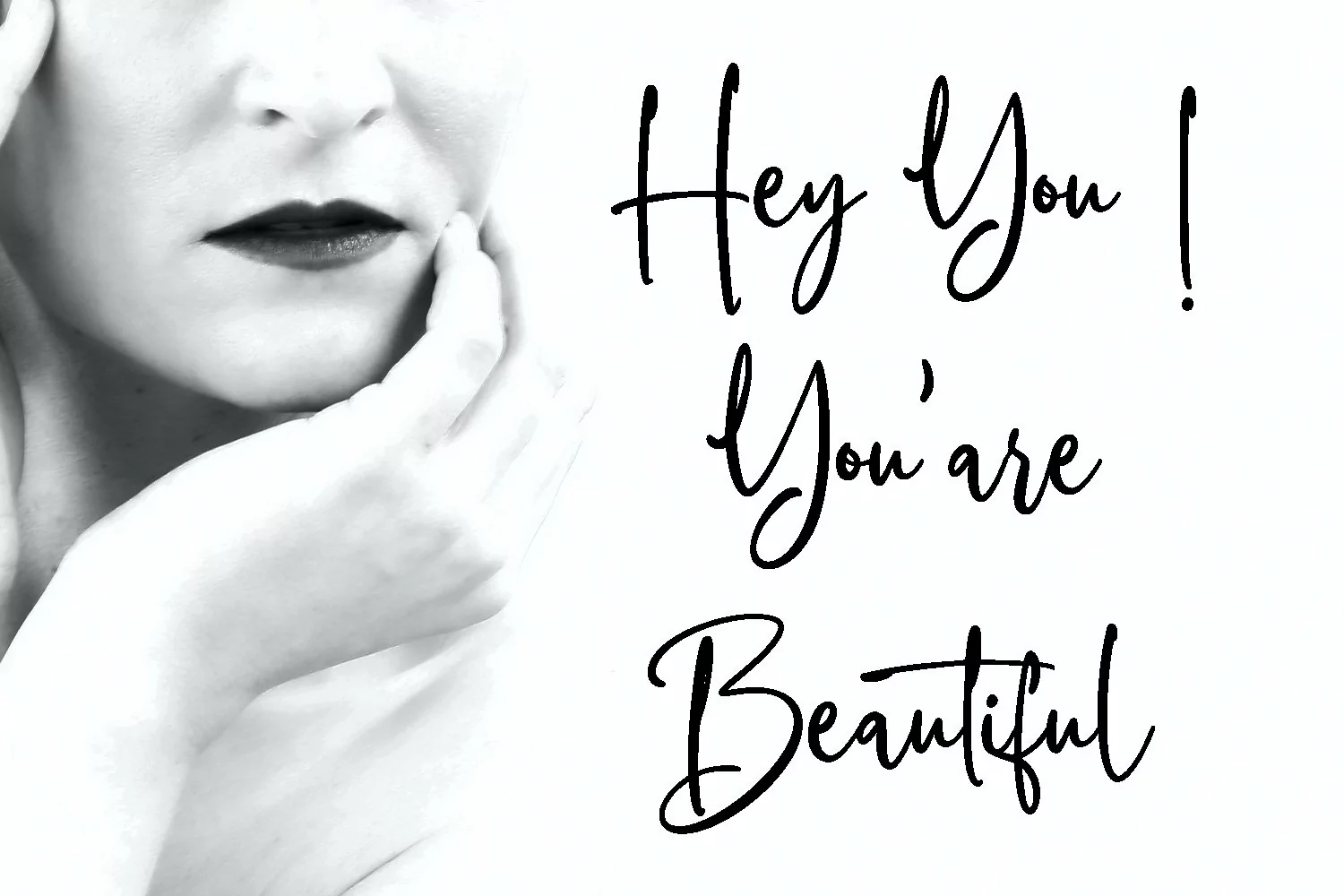
Heistorika is an ink-is fancy handwritten script font. With upright style light contrast stroke, fun character with a bit of ligatures and alternates. To give you an extra creative work. Heistorika font support multilingual more than 100+ language. This font is good for logo design, Social media, Movie Titles, Books Titles, a short text even a long text letter and good for your secondary text font with sans or serif. Make a stunning work with Heistorika font.